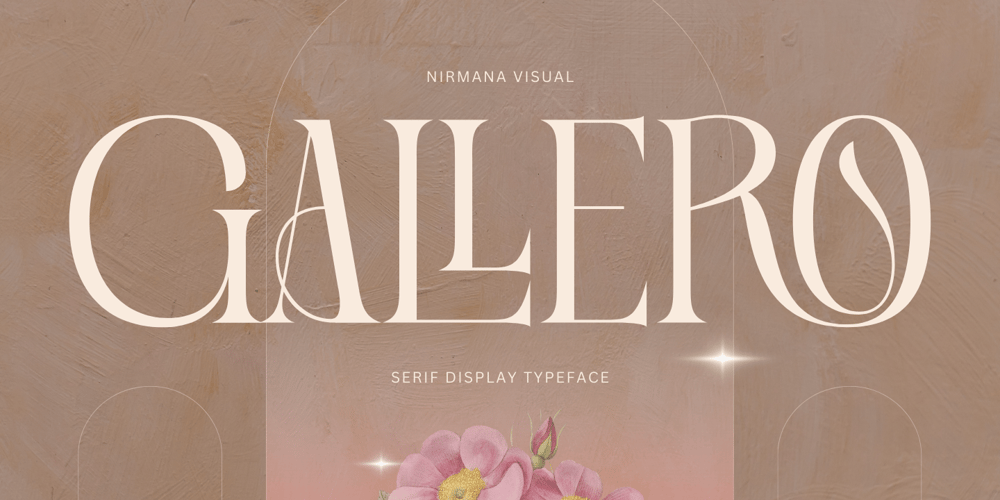
Gallero Vintage Font Family was designed by Sigit Dwipa and published by Nirmana Visual. Gallero Vintage contains 1 styles and family package options. Gallero Vintage Inspired by Renaissance Design Era.Gallero offers beautiful typographic harmony for a diversity of design projects, including logos & branding, social media posts, advertisements & product designs.